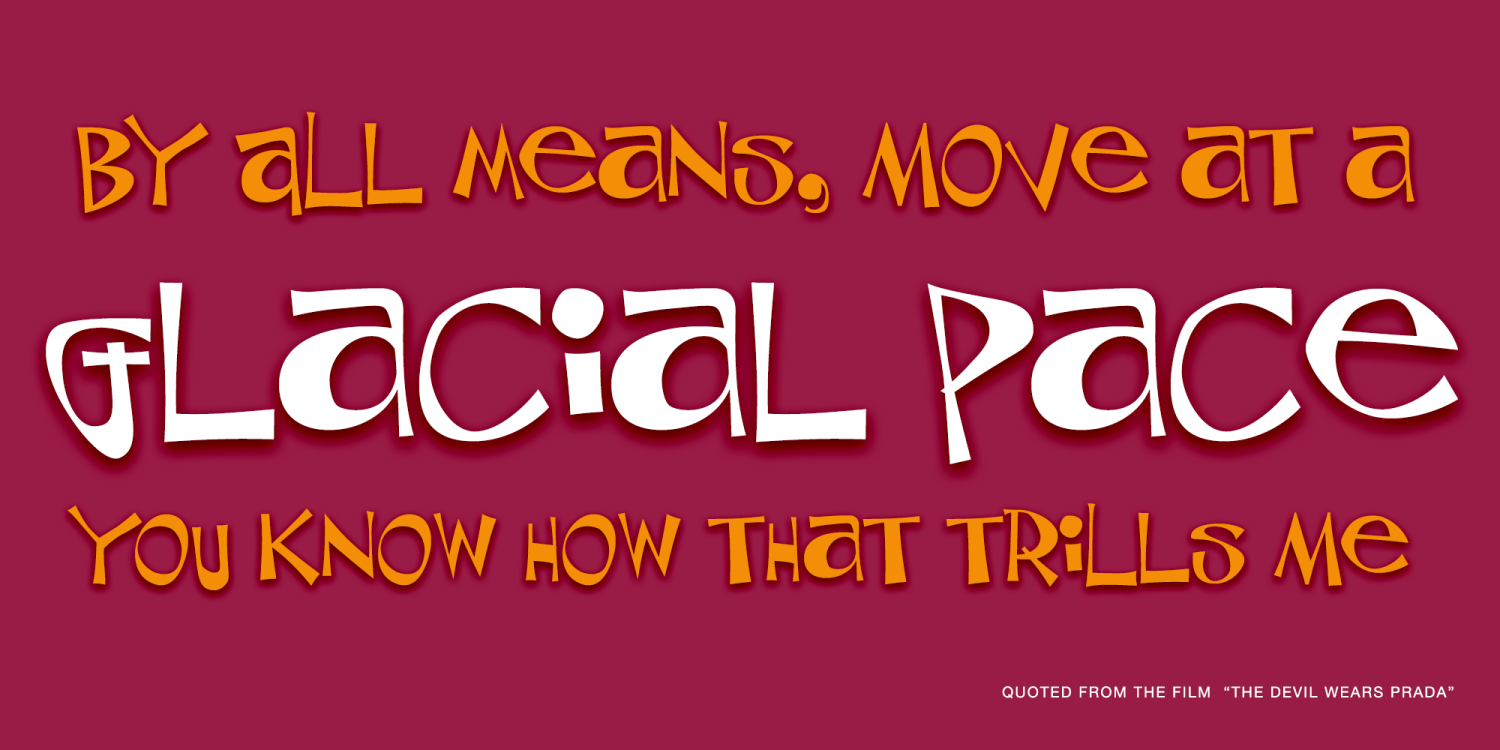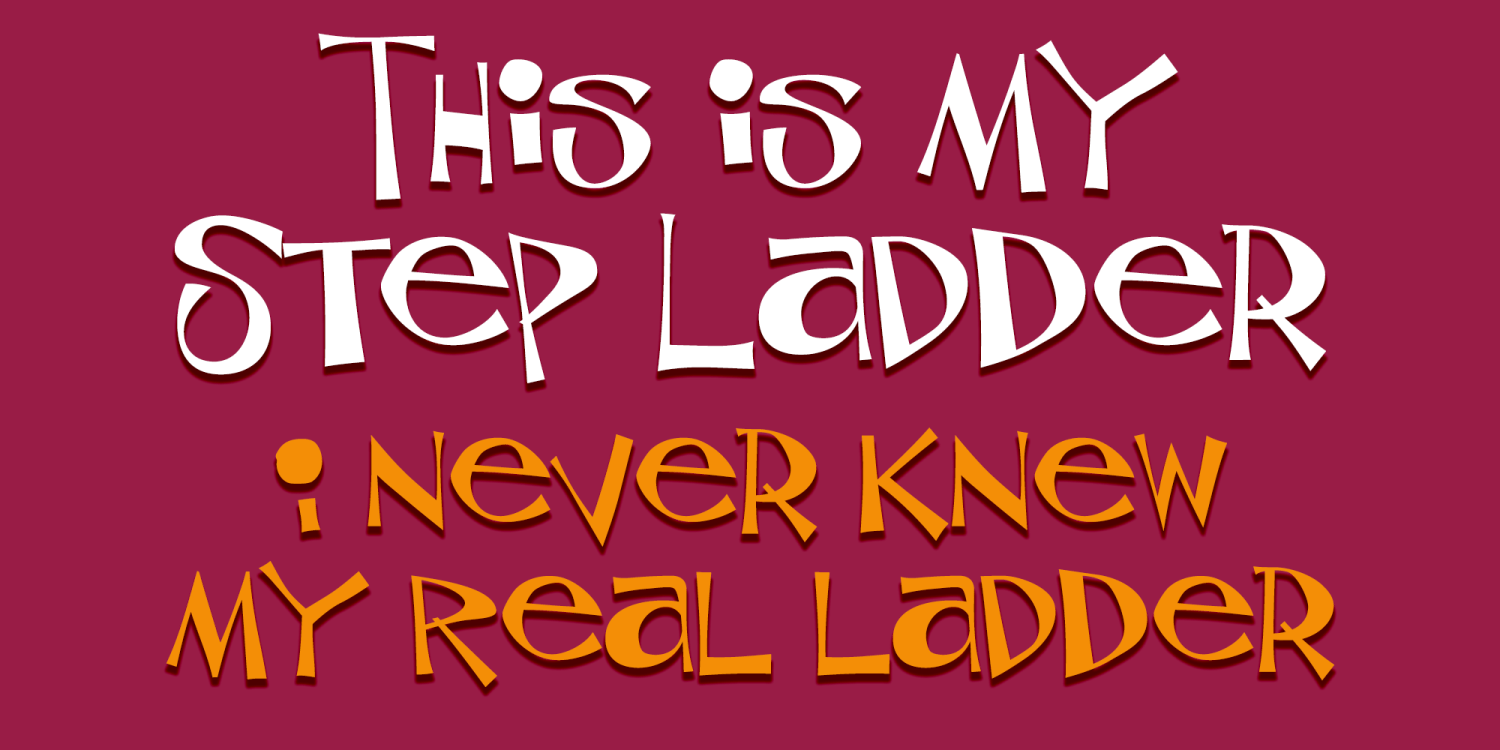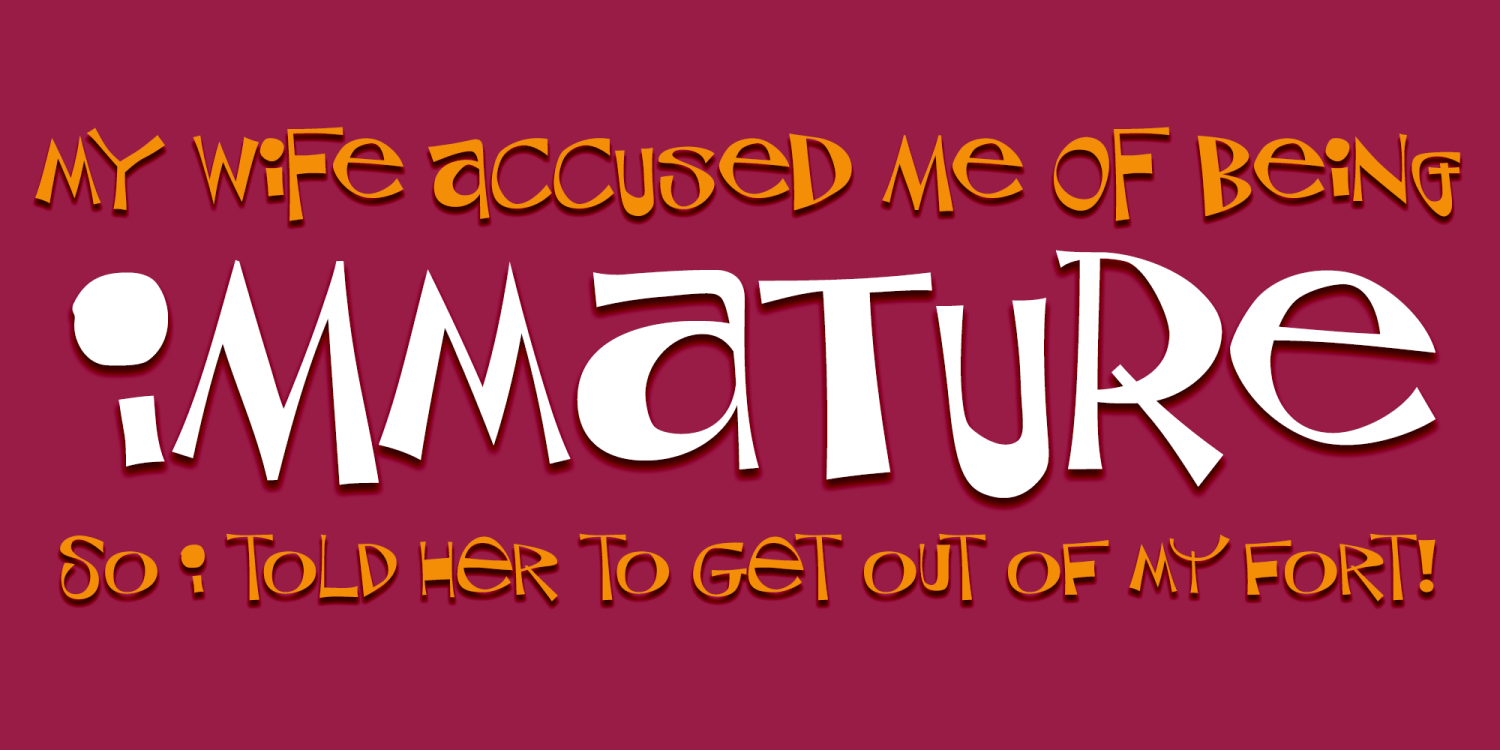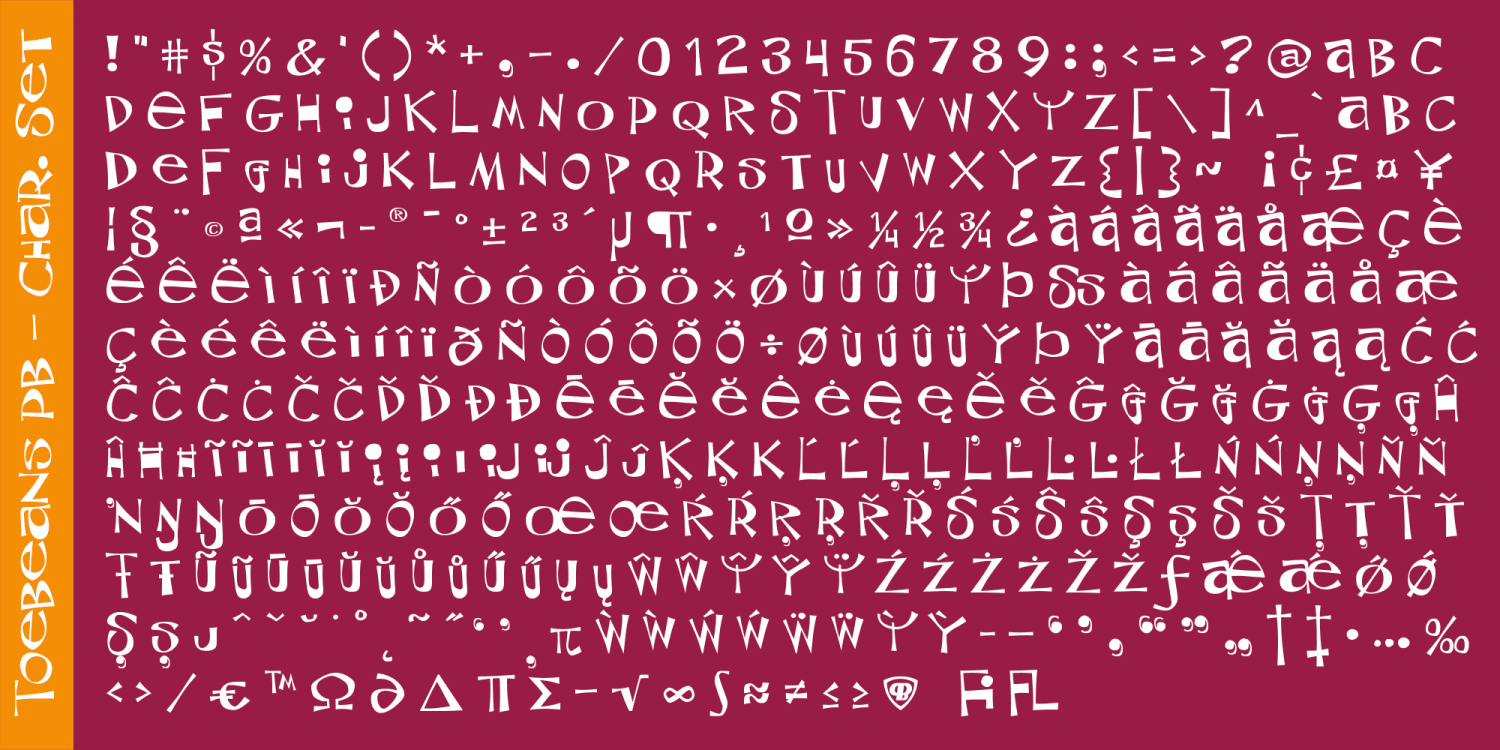
About ToeBeans PB
ToeBeans PB is a radically offbeat sans-serif font inspired by a series of late 70's greeting cards. Much like a typographic drunken stumble, this font wonderfully and awkwardly fumbles across designs, surprising with each letter typed.
With a pseudo unicase character set, as well as offbeat letter weighting and tilting, ToeBeans PB is fun to typeset with celebrating quirky playfulness.
The ToeBeans PB font family includes 384 glyphs.